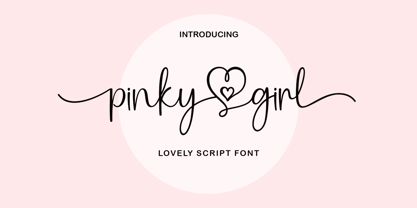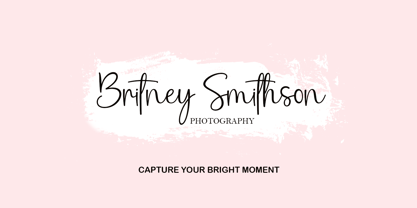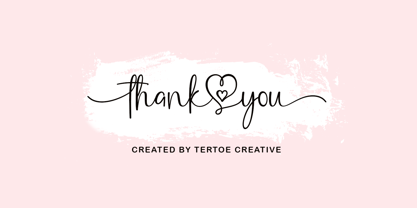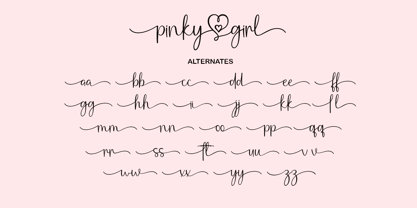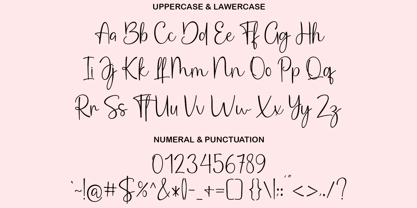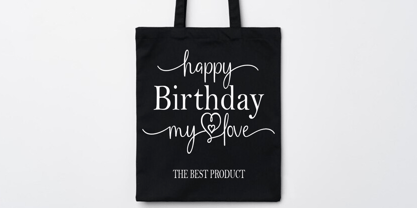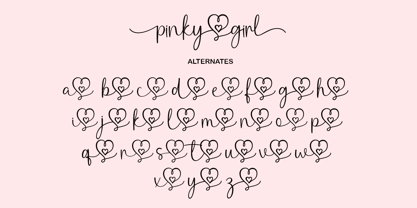
Pinky girl
by Tertoecreative
The Pinky girl Font Family was designed by Khai Dir and published by Tertoecreative. Pinky girl contains 1 styles. More about this family
Pinky Girl feels equally charming and elegant. It looks lovely on wedding invitations, thank you cards, quotes, greeting cards, logos, business cards and every other design which needs a handwritten touch.
This font is PUA encoded which means you can access all of the glyphs and swashes with ease! It features a varying baseline, smooth lines, gorgeous glyphs and stunning alternates.
Designers: Khai Dir
Foundry: Tertoecreative